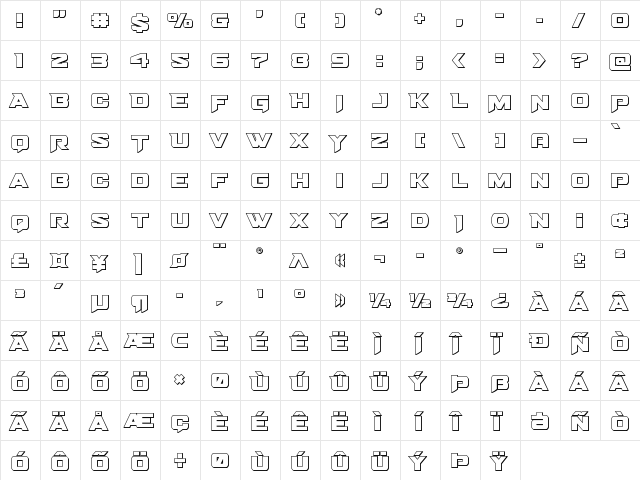
Bomber Escort Outline Regular
Design Context for Bomber Escort Outline Typeface
Bomber Escort Outline is built around its visual character rather than neutral utility — its distinctive forms are designed to make an impression at display sizes.
Font Pairing: Pair with a clean neutral sans-serif for body copy to let Bomber Escort Outline's character lead without overwhelming the composition.
Pro Tip: Treat Bomber Escort Outline as the centrepiece of your typographic hierarchy. One strong heading set in a decorative face can carry an entire layout.